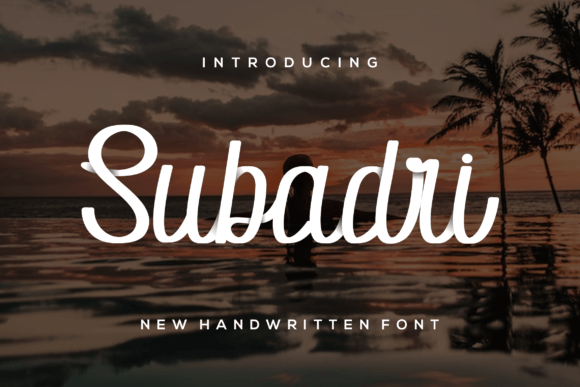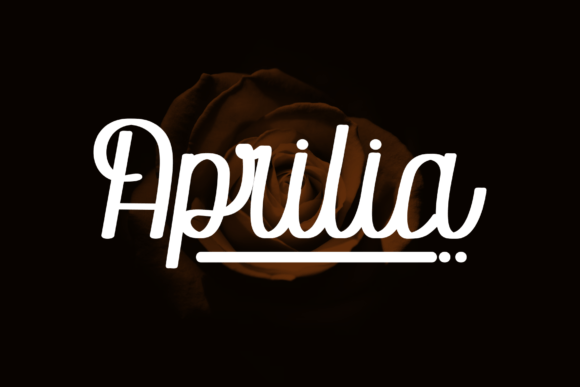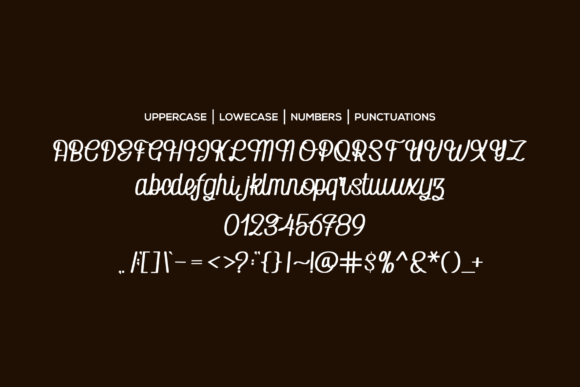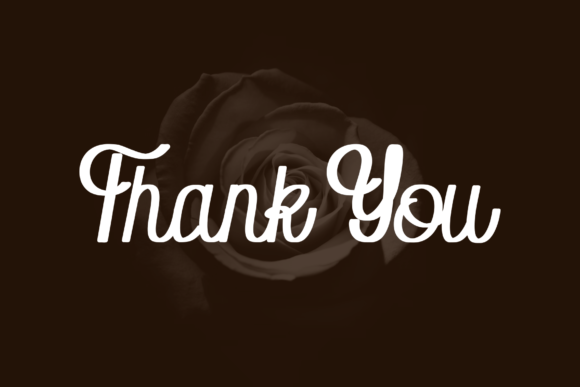
Subadri Font
A Casual and Cool Handwritten Script
Subadri is a relaxed handwritten font that brings a casual, friendly feel to your designs. Each letter has smooth curves and an easy flow, creating a natural look that feels warm and welcoming.
This font is designed to work well in many settings. Its simple style makes it versatile and approachable, no matter the project. Whether you’re creating personal crafts or professional graphics, Subadri is a dependable choice.
Subadri is perfect for a variety of uses. It works beautifully on greeting cards, invitations, and thank-you notes. You can also use it for digital designs like social media graphics, blog headers, and presentations.
Because of its clean and casual style, Subadri adapts to many themes. It’s great for handmade product labels, packaging, and stickers that need a personal touch.
The font includes uppercase and lowercase letters, numbers, and punctuation marks. It also offers ligatures that help your text flow smoothly. These features make it easy to build professional, polished layouts.
Clear, Friendly, and Easy to Read
Even though Subadri has a handwritten look, it stays clear and easy to read in any size. The balanced spacing keeps your text neat and organized, whether it’s a big headline or a small label.
Many designers enjoy pairing Subadri with clean sans-serif fonts. This combination creates contrast and keeps your layouts fresh. Use Subadri for titles and the sans-serif for body text. This helps guide the reader’s eye and maintain a clean look.
Tips for Beautiful Results
To make the most of Subadri, try using light backgrounds and soft color palettes. Neutral tones and pastels help the smooth lines stand out without distractions.
When designing for special occasions like birthdays or holidays, consider adding small illustrations or playful icons. For professional presentations or branding, keep the layout simple so Subadri’s casual style remains the focus.
Think about the feeling you want to create. Subadri is ideal for projects that need to feel friendly, approachable, and authentic.
Subadri is more than just a casual handwritten font. It’s a flexible design tool that helps you turn simple words into something special. Its smooth strokes and relaxed style make any project feel more personal.